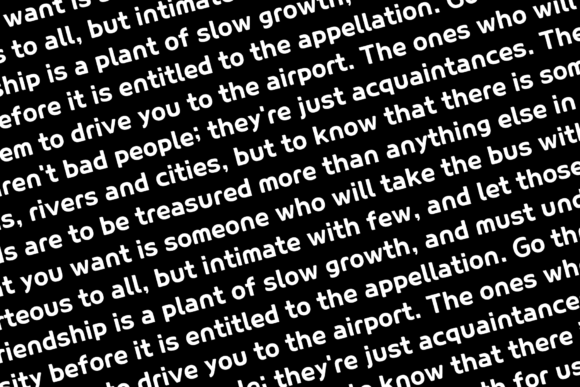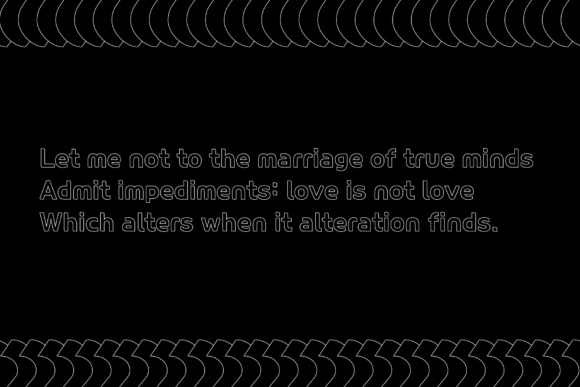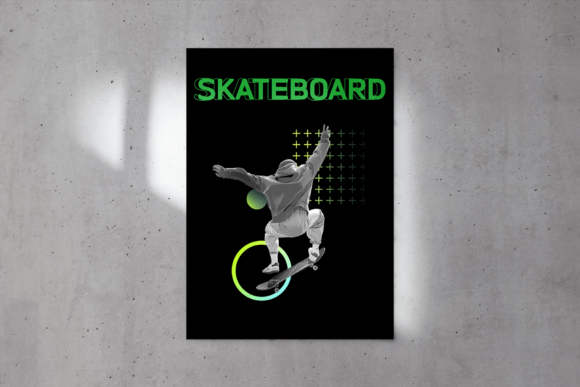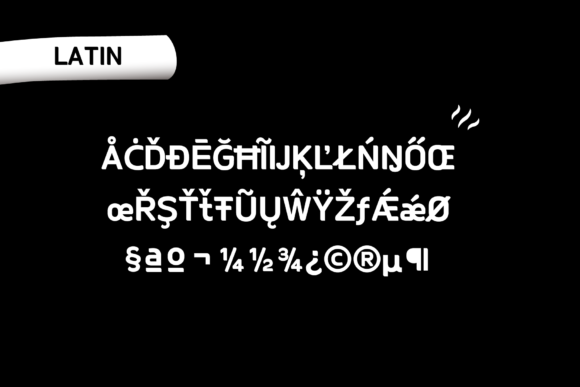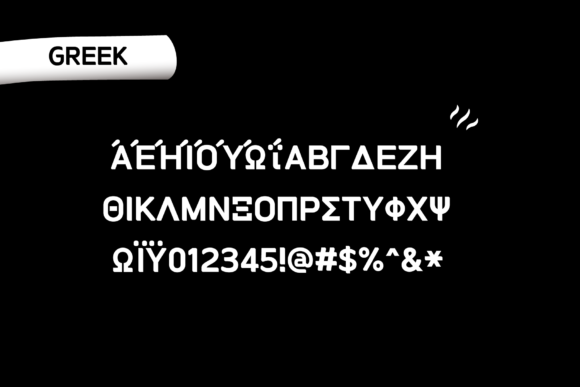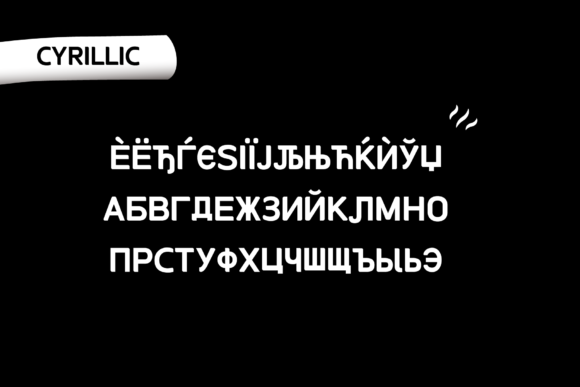
Garaetteok Font: The Cool Sans Serif Inspired by Korean Tradition
In the world of typography, fonts play a crucial role in conveying messages, expressing emotions, and creating visual identities. For designers and crafters, finding the perfect font can be a game-changer. If you’re on the lookout for a unique and cool sans serif font, look no further than Garaetteok Font. Inspired by a traditional Korean rice cake, Garaetteok Font is a refreshing addition to any design project.
The Story Behind Garaetteok Font
Garaetteok, which translates to “rice cake” in Korean, is a traditional Korean food made from steamed rice flour. The Garaetteok Font takes its cue from the clean lines, simplicity, and elegance of this beloved Korean treat. The font’s creator aimed to capture the essence of Garaetteok’s smooth and rounded shape, transforming it into a modern sans serif font that’s both versatile and visually appealing.
Characteristics of Garaetteok Font
Garaetteok Font boasts several characteristics that make it an excellent choice for designers and crafters:
- Cool and Modern: Garaetteok Font exudes a sense of coolness and modernity, making it perfect for designs that require a fresh and contemporary look.
- Sans Serif: The font’s sans serif design ensures clean lines, simplicity, and excellent legibility, making it suitable for a wide range of applications.
- Versatile: Garaetteok Font can be used for various design projects, from branding and advertising to packaging and digital media.
- Elegant: The font’s elegant and refined appearance makes it an excellent choice for designs that require a touch of sophistication.
Why Choose Garaetteok Font?
With so many fonts available, why choose Garaetteok Font? Here are a few compelling reasons:
- Unique Inspiration: Garaetteok Font’s inspiration from a traditional Korean rice cake sets it apart from other fonts, giving your designs a distinctive edge.
- Ease of Use: The font’s clean design and excellent legibility make it easy to use in various contexts, from headings to body text.
- Customization: Garaetteok Font can be easily customized to suit your design needs, allowing you to experiment with different styles and effects.
Using Garaetteok Font in Your Designs
So, how can you incorporate Garaetteok Font into your designs? Here are a few ideas to get you started:
- Branding: Use Garaetteok Font as a logo or brand font to create a unique and memorable visual identity.
- Advertising: The font’s clean design and modern feel make it perfect for advertising campaigns, from print ads to digital banners.
- Packaging: Garaetteok Font can add a touch of elegance and sophistication to packaging designs, making your products stand out on store shelves.
- Digital Media: The font’s versatility and legibility make it an excellent choice for digital media, including websites, social media graphics, and email marketing campaigns.
Garaetteok Font is a cool sans serif font that’s sure to impress designers and crafters alike. With its unique inspiration, elegant design, and versatility, this font is an excellent addition to any design project. Whether you’re looking to create a bold brand identity, eye-catching advertising campaigns, or stunning packaging designs, Garaetteok Font is the perfect choice. So why wait? Add Garaetteok Font to your favorite creations and be amazed by the outcome!